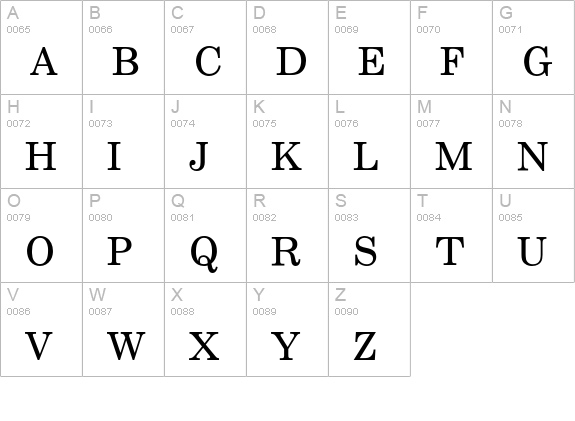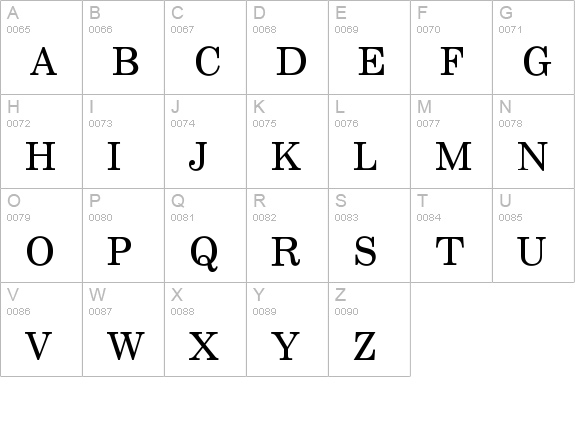
Century Schoolbook Regular is the standard, neutral variant in the Century typeface family \xE2\x80\x94 well suited to general body text, paragraphs, and standard typographic work.
Century Schoolbook Regular is a classic and timeless font that exudes sophistication and elegance. Its clean lines and balanced proportions make it perfect for a wide range of design projects, from formal invitations to educational materials. This versatile serif font is easy to read and provides a sense of tradition and authority. The best part is that Century Schoolbook Regular is available for free download at FontsMarket.com. This means that you can easily access this high-quality font without any cost, making it a valuable addition to your font collection. Whether you're a designer looking for a reliable typeface or a student working on a project, Century Schoolbook Regular is a fantastic choice that combines style and accessibility in one package. Download it today and elevate your designs with this timeless font.